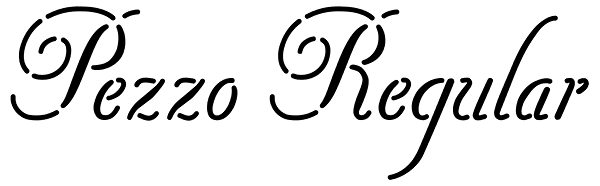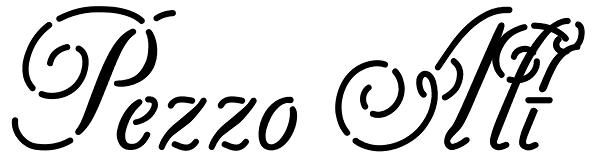
Pezzo
The idea for Pezzo was born when I saw an old copper monogram stencil. The script forms are inspired by titles and signature inscriptions of several Dutch seventeenth century paintings. These inscriptions are simpler variations of what was commonly...
Pezzo Regular
Pezzo Alt